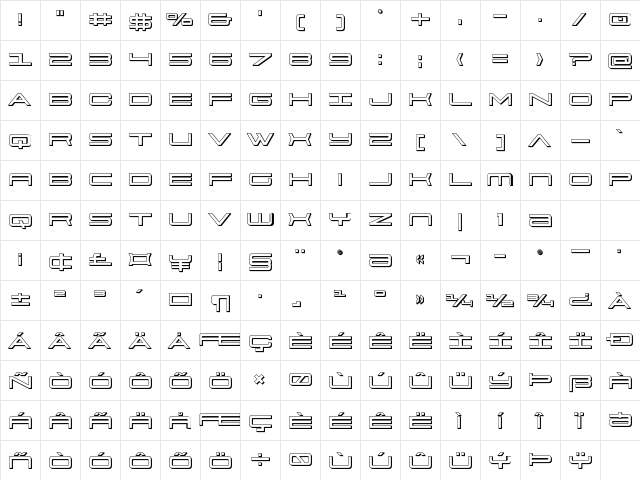
911 Porscha 3D Regular
Design Context for 911 Porscha 3D
911 Porscha 3D is a composed and adaptable typeface that performs quietly and consistently across a wide range of design contexts.